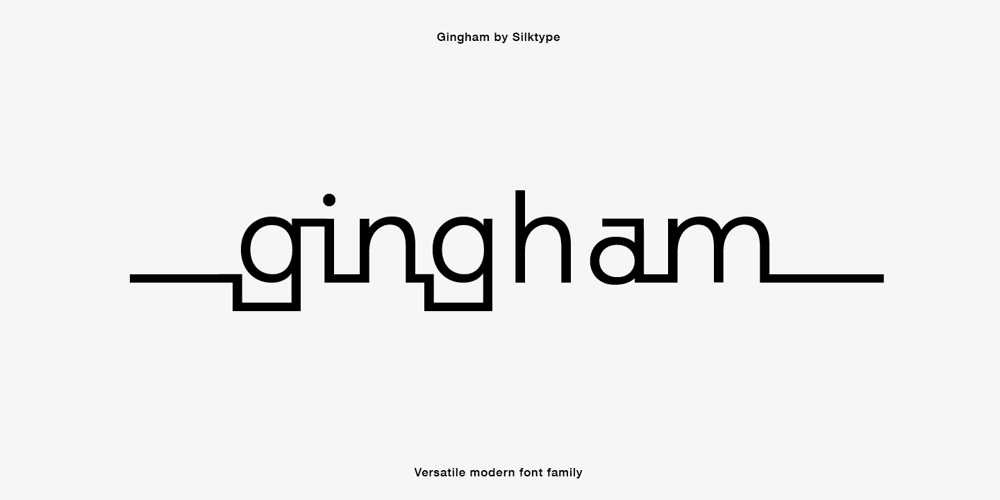
Gingham Font Family was designed by Rakel Tómasdóttir and published by SilkType. Gingham contains 10 styles and family package options. Gingham is a modern sans serif typeface. The unaltered version of the font is clean and classic. However, the font has multiple different options for alteration. Each letter has up to 8 different versions, which the user can choose from to make connections between letters and words, creating a completely new shape. The font also includes two stylistic sets, nr. 01 gives the overall feel of the text a more modern look and nr. 02 a more traditional one.